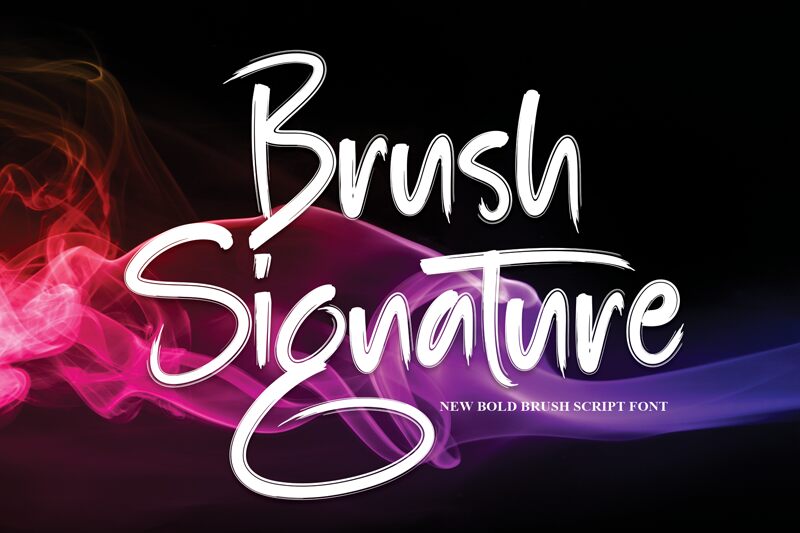
Brush Signature
Brush Signature, a stunning creation by Scratchones, is an exquisite brush signature font that effortlessly blends elegance and uniqueness. With its semi-light weight, this font exudes a sense of sophistication and finesse.
Perfect for projects that require a personal touch, such as wedding invitations and event branding. Its delicate strokes add an artistic flair to logos and social media graphics. Brush Signature is also well-suited for fashion magazines, beauty blogs, or any design that calls for a touch of luxurious hand-lettering. Let your creativity flow with this captivating font.